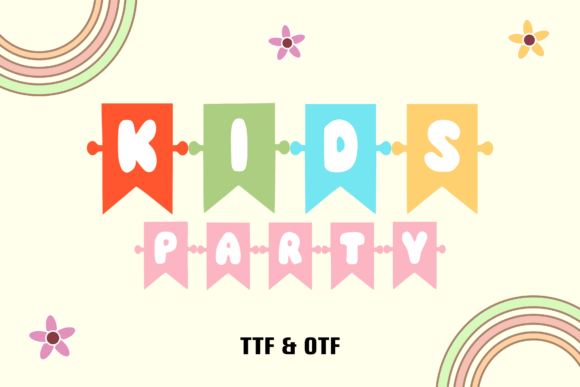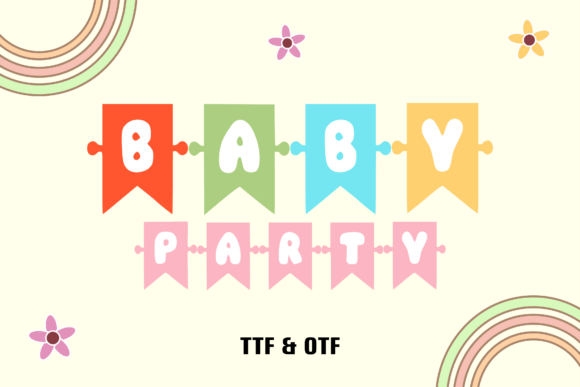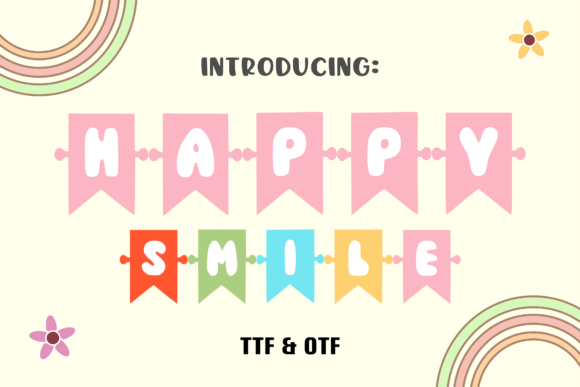
Introducing Happy Smiley Font: The Ultimate Choice for Cheerful Designs
Are you tired of using the same old fonts for your designs? Do you want to add a touch of joy and playfulness to your projects? Look no further than Happy Smiley Font, a cheerful and playful font that’s perfect for kids’ projects, party invitations, greeting cards, and playful branding.
What Makes Happy Smiley Font So Special?
Happy Smiley Font is a unique and eye-catching font that features letters placed inside cute pennant banners. This design element adds a fun and whimsical touch to any project, making it perfect for designers and crafters who want to create something truly special. The font’s soft, rounded letterforms and colorful aesthetic make it a standout choice for anyone looking to add a friendly and approachable feel to their designs.
Perfect for Kids’ Projects and Party Invitations
Happy Smiley Font is a dream come true for designers and parents working on kids’ projects. Whether you’re creating a birthday party invitation, a DIY craft project, or a fun educational resource, this font is sure to delight. The playful and cheerful design of Happy Smiley Font is sure to capture kids’ attention and add a touch of excitement to any project.
For party invitations, Happy Smiley Font is the perfect choice. The font’s colorful and festive design will set the tone for a fun and memorable celebration. You can use it to create custom invitations, party hats, and other decorations that will make your party planning a breeze.
Great for Greeting Cards and Playful Branding
Happy Smiley Font is not just limited to kids’ projects and party invitations. It’s also a great choice for greeting cards, social media graphics, and playful branding. The font’s friendly and approachable design makes it perfect for creating custom greeting cards for birthdays, holidays, and special occasions.
For businesses, Happy Smiley Font can be used to create playful and engaging branding materials, such as logos, social media graphics, and advertisements. The font’s cheerful design will help you connect with your audience and create a memorable brand identity.
Key Features of Happy Smiley Font
- Unique and eye-catching design featuring letters inside cute pennant banners
- Soft, rounded letterforms for a friendly and approachable feel
- Colorful aesthetic that adds a fun and playful touch to any design
- Perfect for kids’ projects, party invitations, greeting cards, and playful branding
Happy Smiley Font is a cheerful and playful font that’s perfect for designers and crafters who want to add a touch of joy and playfulness to their projects. With its unique design, soft letterforms, and colorful aesthetic, this font is sure to delight kids and adults alike. Whether you’re working on a kids’ project, party invitation, greeting card, or playful branding materials, Happy Smiley Font is the ultimate choice for creating fun and engaging designs.